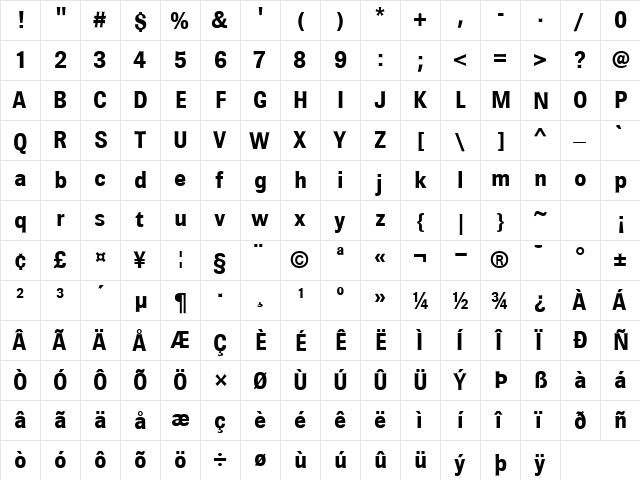
Brown Bold
Design Context for Brown Typeface
Brown offers clean, dependable letterforms without strong stylistic allegiance, making it a practical choice for designers who need flexibility. The heavy weight commands attention and anchors typographic hierarchies.